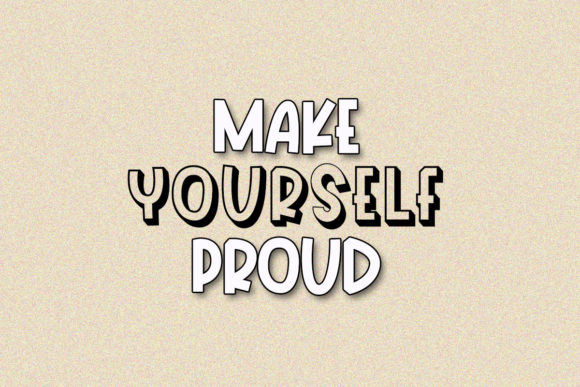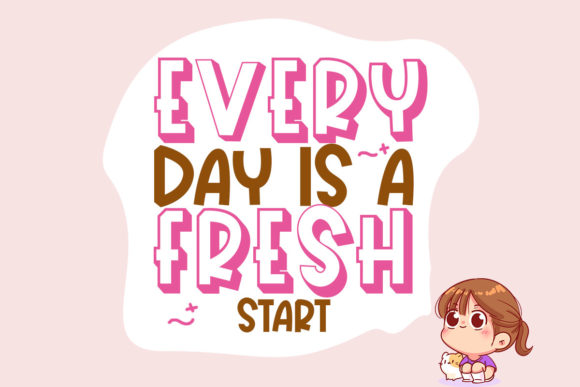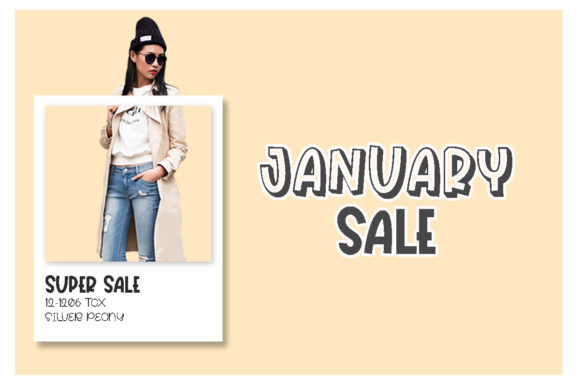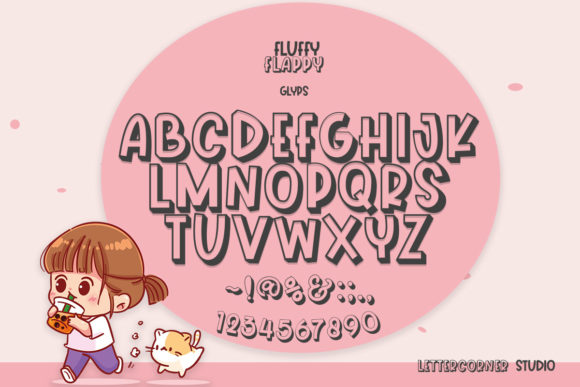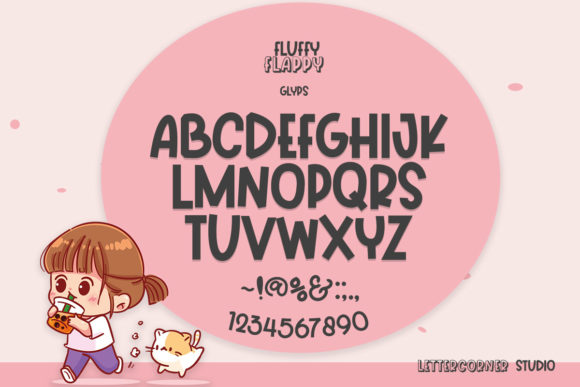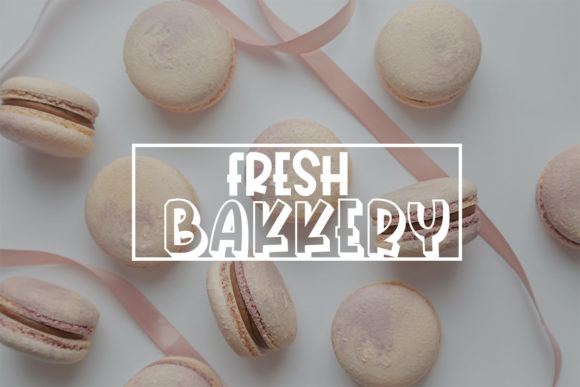
Introducing Fluffy Flappy Font: The Ultimate Display Font for Creative Projects
Are you tired of using the same old fonts for your designs? Look no further! Fluffy Flappy Font is here to add a touch of fun and quirkiness to your creations. This display font is perfect for designers, crafters, and anyone looking to add some personality to their projects.
What is Fluffy Flappy Font?
Fluffy Flappy Font is a fun and cool looking display font that is sure to grab attention. Its quirky style makes it easy to match with a wide range of creations, from cartoon designs to titles. The font’s playful and carefree vibe is perfect for projects that require a lighthearted and humorous touch.
Key Features of Fluffy Flappy Font
- Quirky Style: Fluffy Flappy Font has a unique and quirky style that sets it apart from other fonts.
- Display Font: This font is specifically designed as a display font, making it perfect for headlines, titles, and other attention-grabbing elements.
- Fun and Playful: Fluffy Flappy Font has a fun and playful vibe that is sure to add a touch of personality to your designs.
- Versatile: This font can be used for a wide range of projects, from cartoon designs to titles, posters, and more.
Who Can Use Fluffy Flappy Font?
Fluffy Flappy Font is perfect for a variety of designers and crafters, including:
- Graphic Designers: Add a touch of fun and quirkiness to your designs with Fluffy Flappy Font.
- Illustrators: Use this font to add personality to your illustrations and cartoons.
- Crafters: Perfect for crafters who want to add a personal touch to their projects, such as handmade cards and gift tags.
- Digital Artists: Use Fluffy Flappy Font to add a playful touch to your digital art.
Here are a few tips for using Fluffy Flappy Font:
- Use it as a headline font: Fluffy Flappy Font is perfect for grabbing attention, so use it as a headline font to draw in your audience.
- Experiment with different colors: This font looks great in a variety of colors, so don’t be afraid to experiment and find the perfect color for your design.
- Pair it with other fonts: Fluffy Flappy Font pairs well with a variety of other fonts, so try pairing it with a serif font for a fun and playful look.
The Benefits of Using Fluffy Flappy Font
There are many benefits to using Fluffy Flappy Font in your designs. Here are a few:
- Adds Personality: Fluffy Flappy Font adds a touch of personality to your designs, making them stand out from the crowd.
- Grabs Attention: This font is sure to grab attention, making it perfect for headlines and titles.
- Versatile: Fluffy Flappy Font can be used for a wide range of projects, from cartoon designs to titles and posters.
Fluffy Flappy Font is a fun and cool looking display font that is sure to add a touch of personality to your designs. Its quirky style and playful vibe make it perfect for a wide range of projects, from cartoon designs to titles and posters. Whether you’re a graphic designer, illustrator, crafter, or digital artist, Fluffy Flappy Font is a great addition to your font collection.